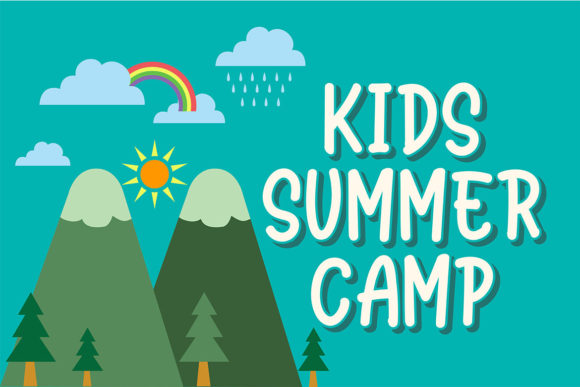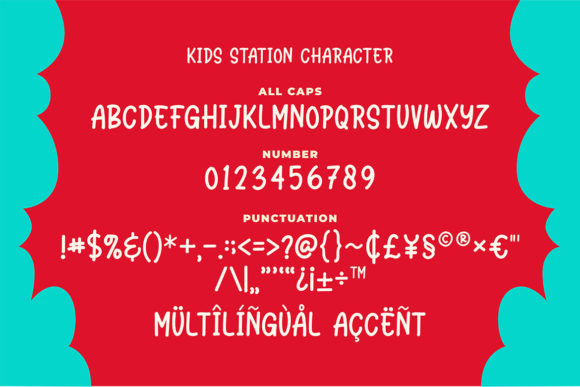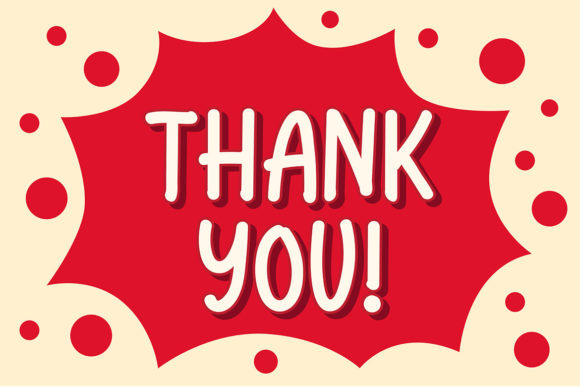
HomeScript FontsStation Kids Font Script Fonts Station Kids Font FacebookXPinterestWhatsApp Station Kids Font Poster 2 Station Kids Font Poster 3 Station Kids Font Poster 4 About Station Kids Font Station Kids is a fun and cool handwritten sans serif font with a cool vibe. Get inspired by its youthful charm. DOWNLOAD ON CREATIVE FABRICAThis font is sold and delivered by Creative Fabrica. Font Canyon may earn a commission if you buy through this link. People also explored Blueberry and Jasmine Pastela Font Marelan Font Roskilde Madison Christmas Split Monogram Font Be Love Font Bangkong Font The Munday Font Ortygia Font 288 0 TagsStation Kids Font Previous articleMetropolis FontNext articleTaken by Vultures Font LEAVE A REPLY Cancel reply Comment: Please enter your comment! Name:* Please enter your name here Email:* You have entered an incorrect email address! Please enter your email address here Website: Save my name, email, and website in this browser for the next time I comment. Personal Use Free Dacquoise Personal Use Free Read more about this font Shelly Personal Use Free Read more about this font Butter Belly Personal Use Free Read more about this font Starter Personal Use Free Read more about this font BLOG Elegant Wedding Invitation Fonts – Handwritten & Script Fonts Elegant Wedding Invitation Fonts Your wedding day is one of the most important moments of your life, and every detail matters—including your invitation design. Our... How to Install and Use Fonts on Windows, macOS, and Web Projects Free vs Paid Fonts: Why Investing in Premium Fonts Is Worth It Where to Buy American Fonts Online in 2024